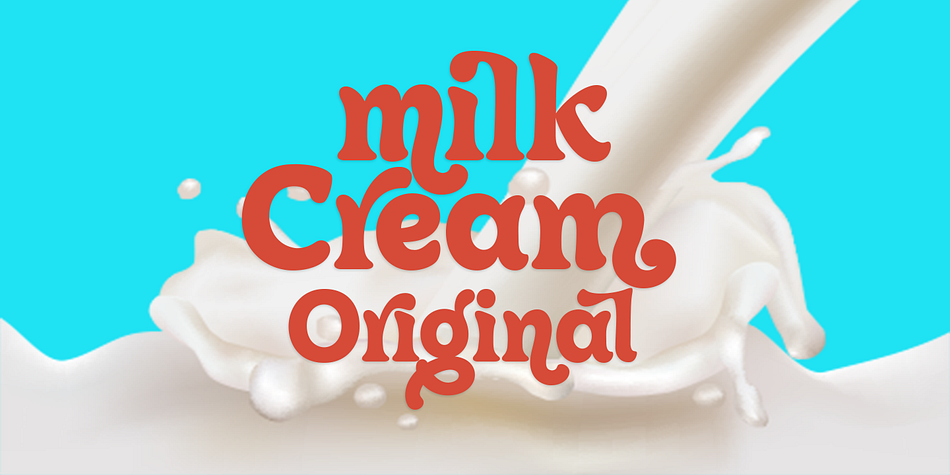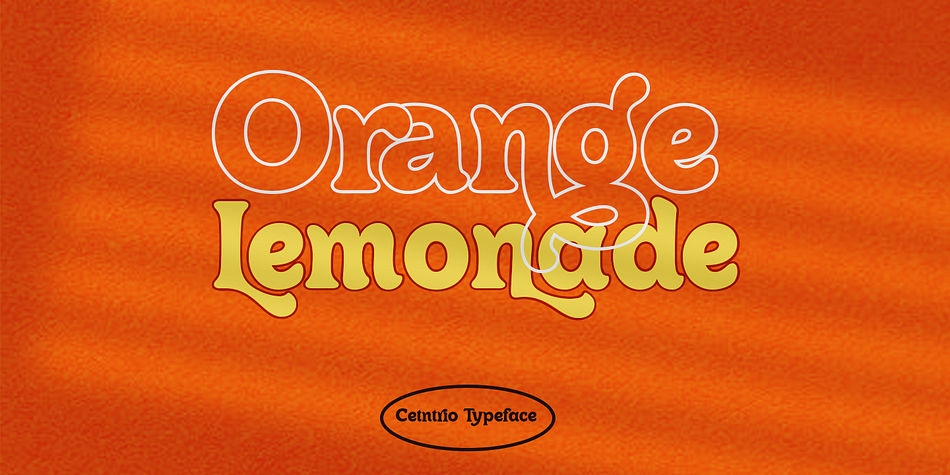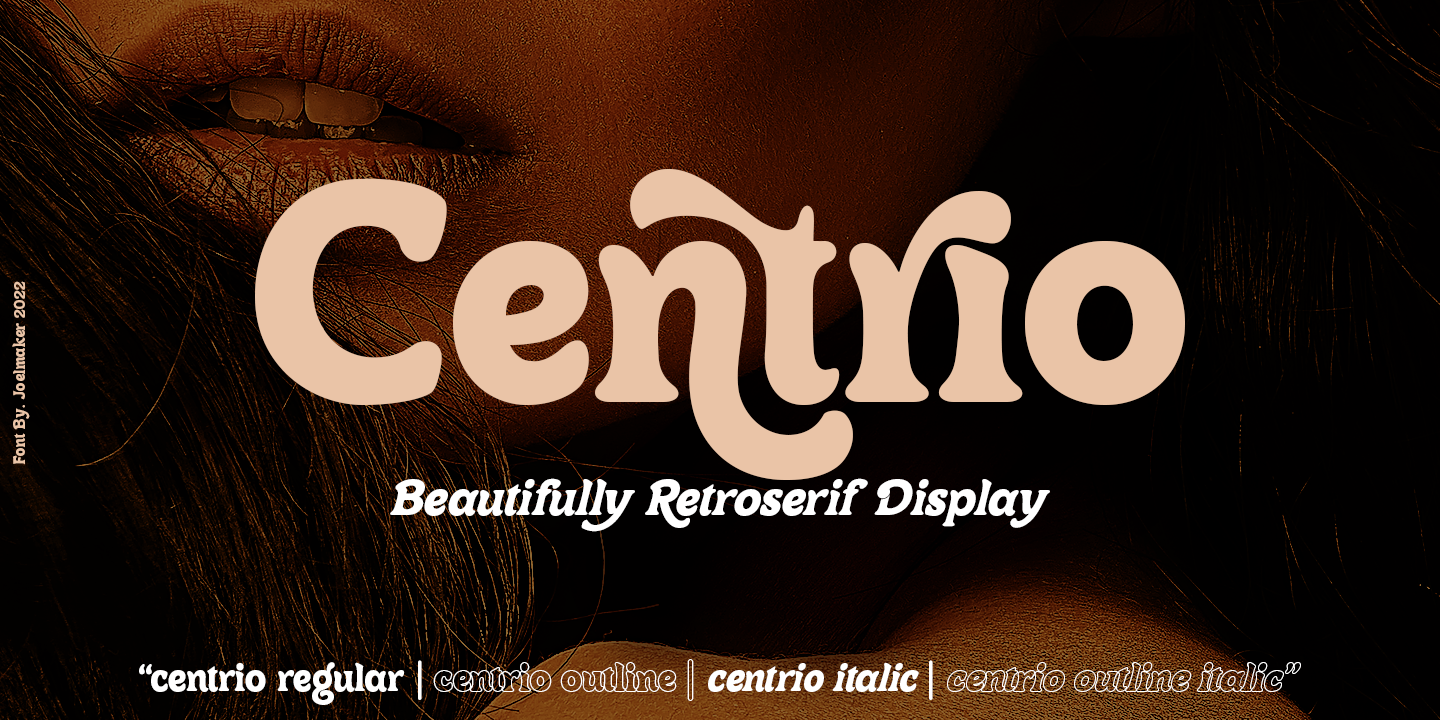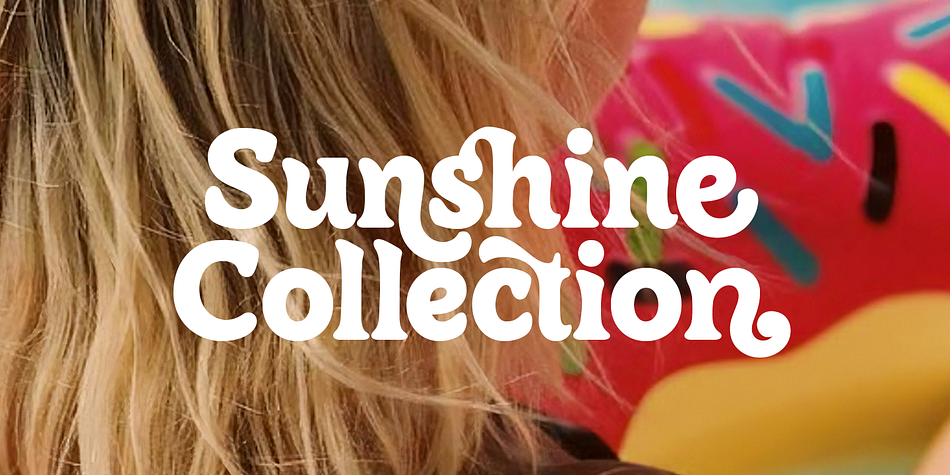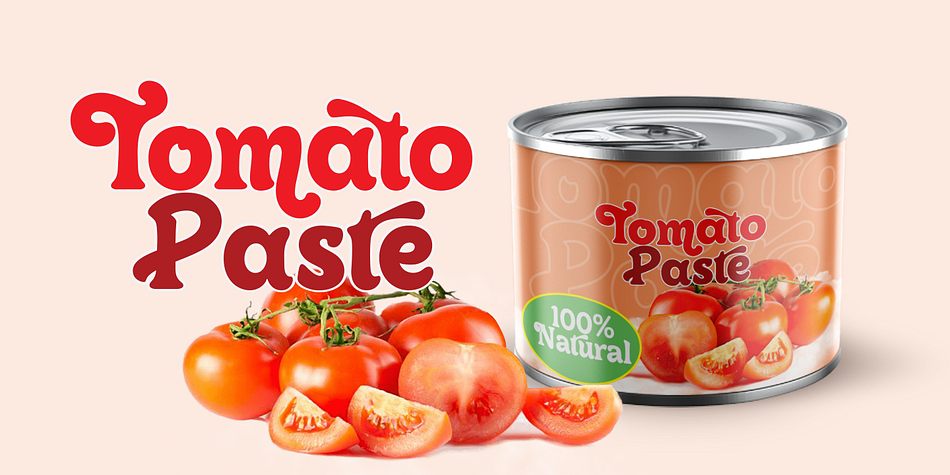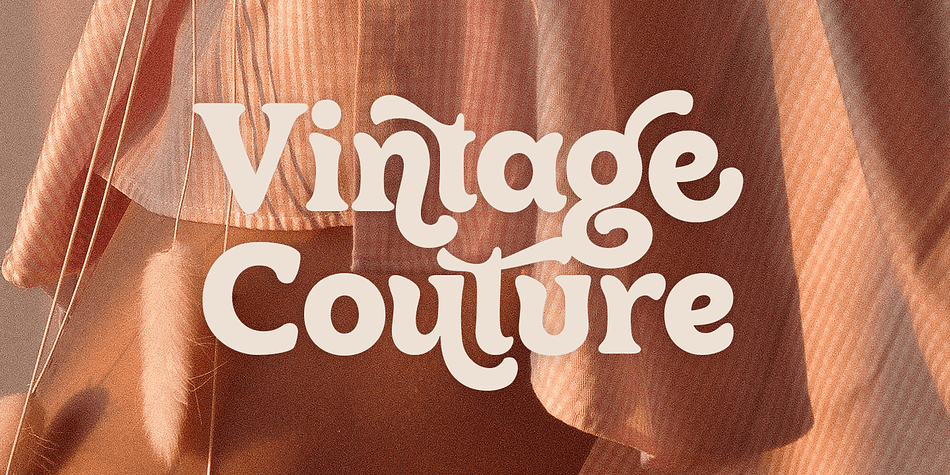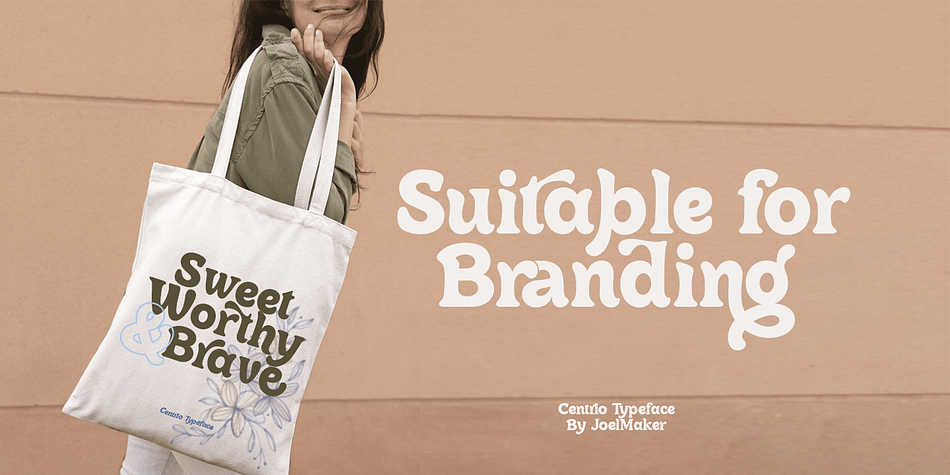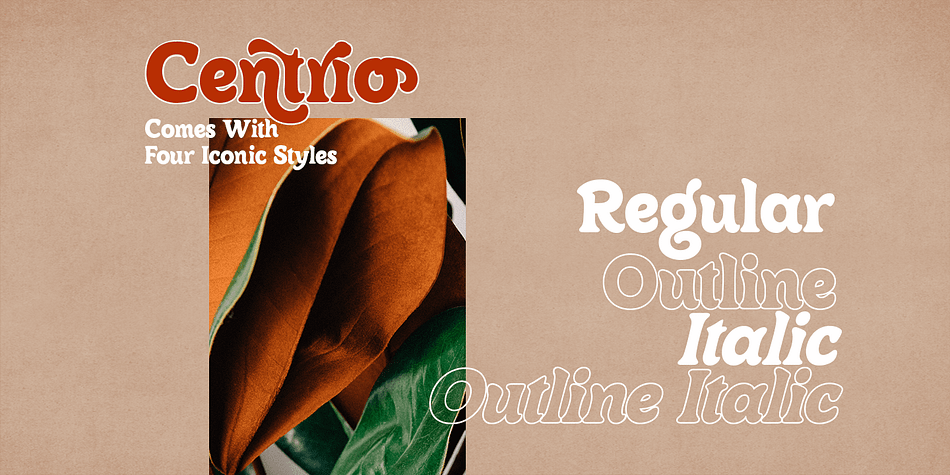
Centrio
Designed by Zulfikar MG, Centrio is a retro font family. This typeface has four styles and was published by joelmaker.
**Centrio Typeface** Retro with an artistic touch elegant modern yet vintage the as well as a unique blend of ligatures a letter, so that the authors compose it with a and little swirly embedding, so that a modern font is formed and ready to make a statement by adding elegant and unique flair to your next design project.
**Centrio Typeface** can be used for various purposes such as Magazine Title, Poster, Logo, T-Shirt, Sub Title, Business cards, Magazines, Book Covers, Wedding Invitations,Templates Instagram Story Post, Greeting Cards, Quotes, etc.